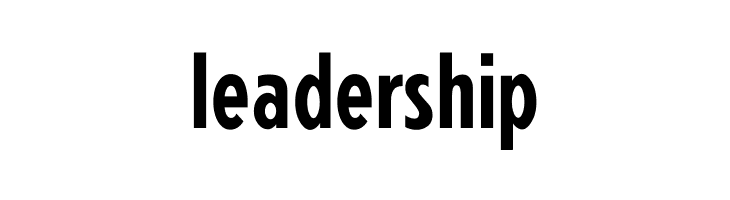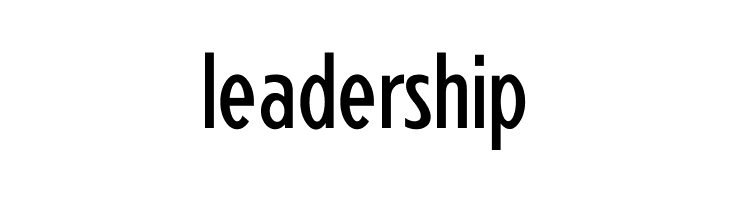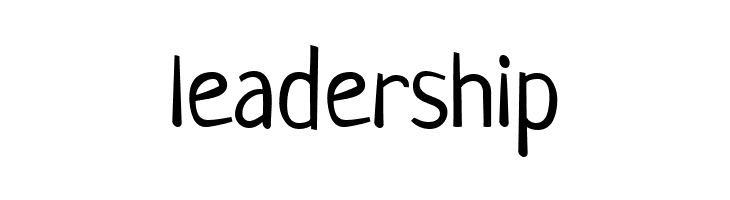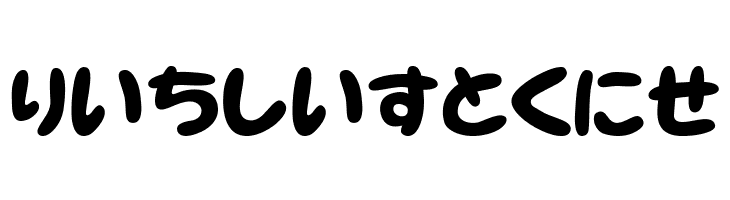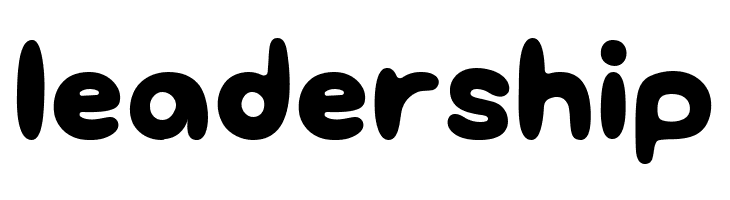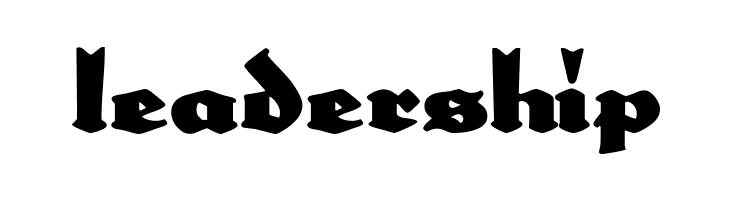
A runic-inspired font with angular, geometric characters.
A modern, striped font with a digital and futuristic design.
A modern font utilizing negative space with geometric lines and cutouts.
A clean, modern sans-serif font with smooth, rounded edges and consistent stroke thickness.
A bold, geometric font with a digital, pixel-art style.
A bold, geometric font with a futuristic and modern design.
A geometric, minimalist font with clean lines and angular shapes.
A geometric and futuristic font with angular, minimalist design.
A playful handwritten font with rounded, casual letterforms.
A futuristic, rounded font with smooth curves and consistent stroke width.
A pixelated, neon-inspired font with a retro digital aesthetic.
A bold, decorative font with a layered, neon sign-inspired design.
A modern, geometric font with characters enclosed in circular shapes, ideal for tech-inspired designs.
A bold, geometric font with a 3D effect, ideal for modern and sci-fi themed projects.
A bold, geometric font with a futuristic and edgy design.
A bold, geometric font with sharp angles and a futuristic design.
A futuristic, geometric font with bold, angular characters enclosed in circles.
A bold, geometric font with a futuristic and digital aesthetic.
A bold, expanded font with a modern, geometric style.
A futuristic, wide, and geometric font with balanced spacing.
A playful, rounded font with a bold and bubbly appearance.
A playful, bold font with rounded, bubbly characters and tight spacing.
A playful, bold font with rounded edges and a cartoonish style.
A bold, dramatic Blackletter-style font with thick, angular strokes.
A playful, bold font with rounded edges and a hand-drawn feel.
A bold, modern typeface with strong lines and a clean aesthetic.
A modern sans-serif font with clean lines and excellent readability.
A playful, handwritten font with smooth curves and a casual style.
A bold, 3D wireframe font with a decorative and futuristic style.
A bold, playful font with rounded characters and circular cutouts, perfect for decorative use.
A bold, classic serif typeface with strong strokes and elegant serifs.
A bold serif font with strong strokes and a classic design.